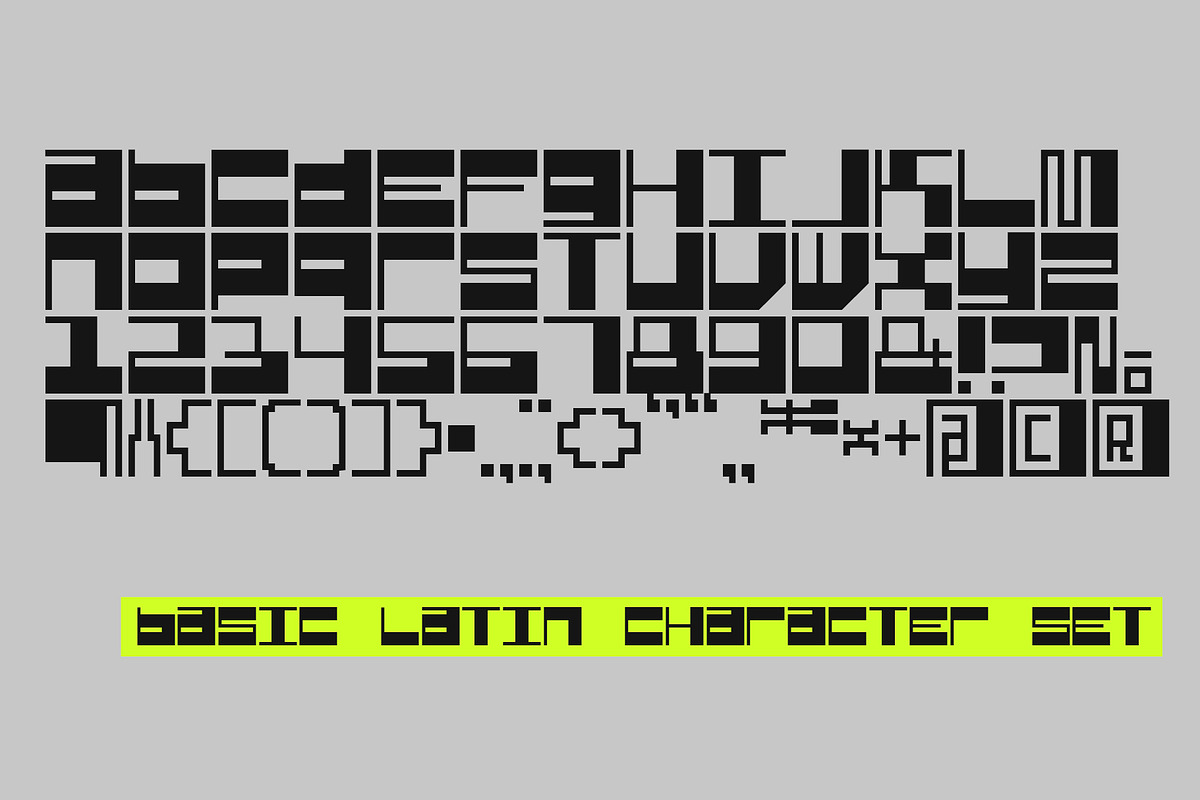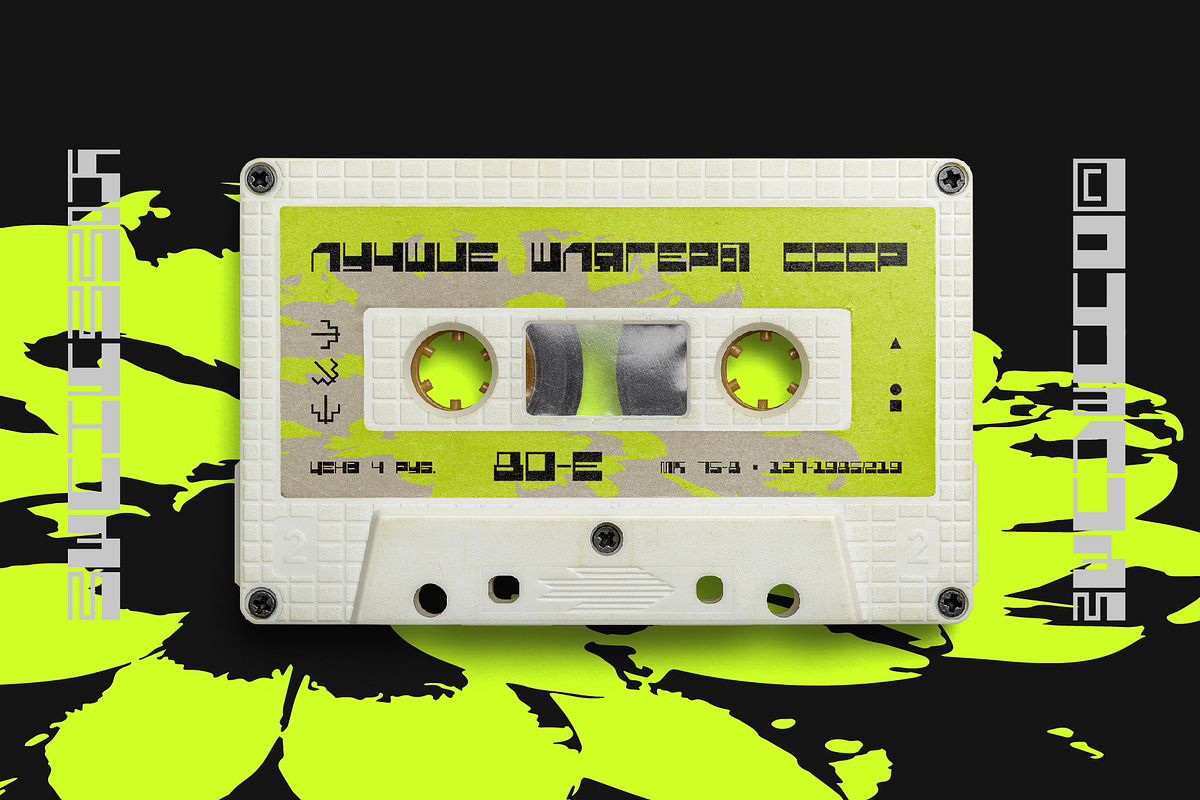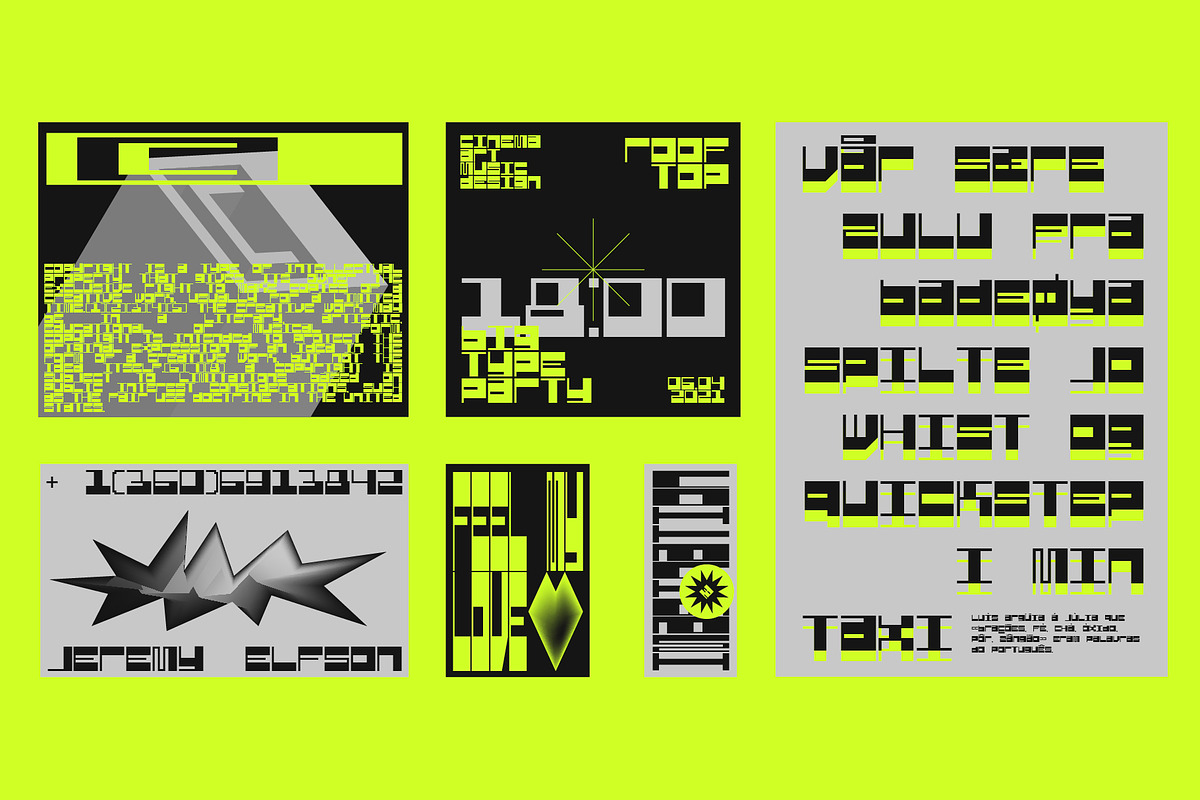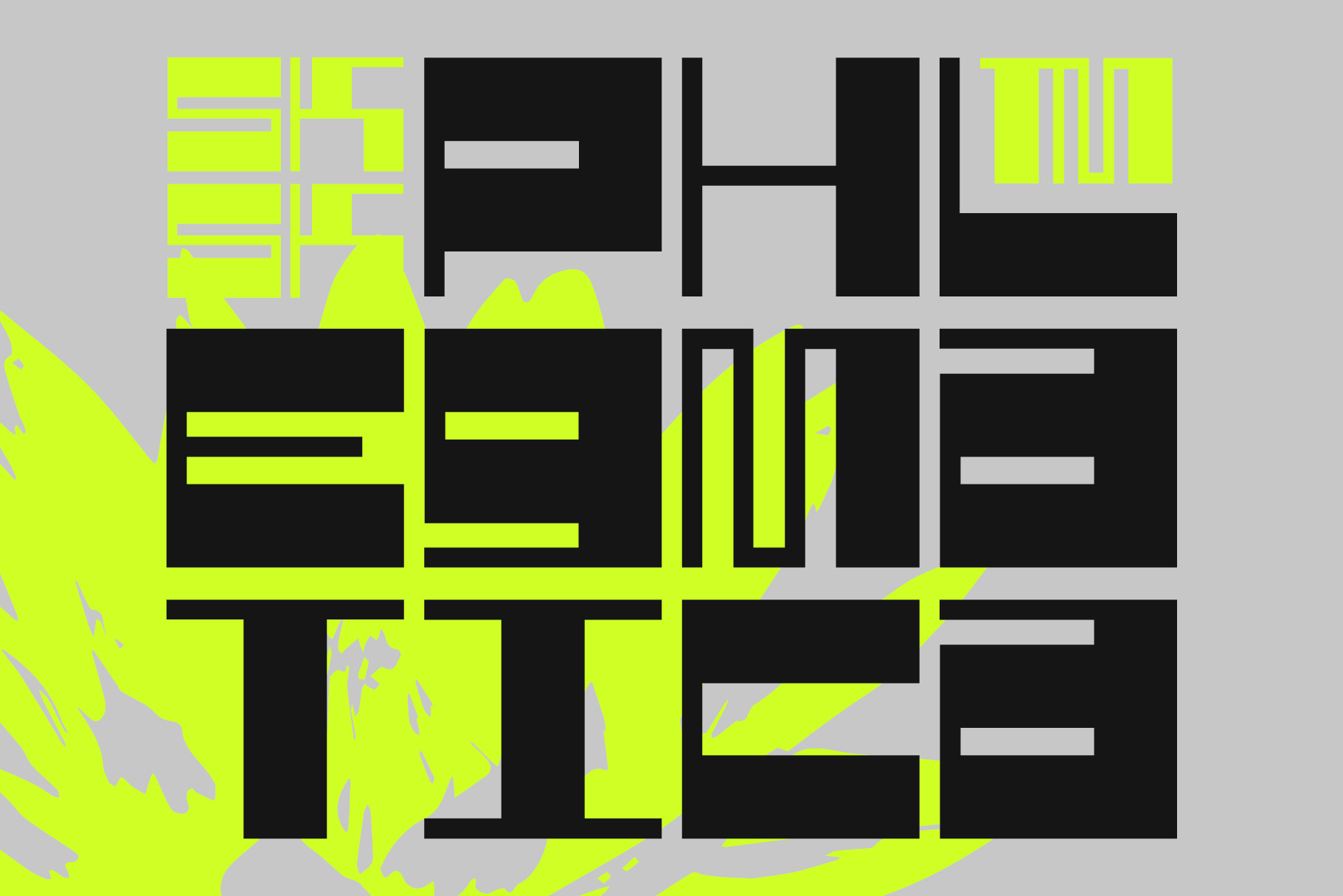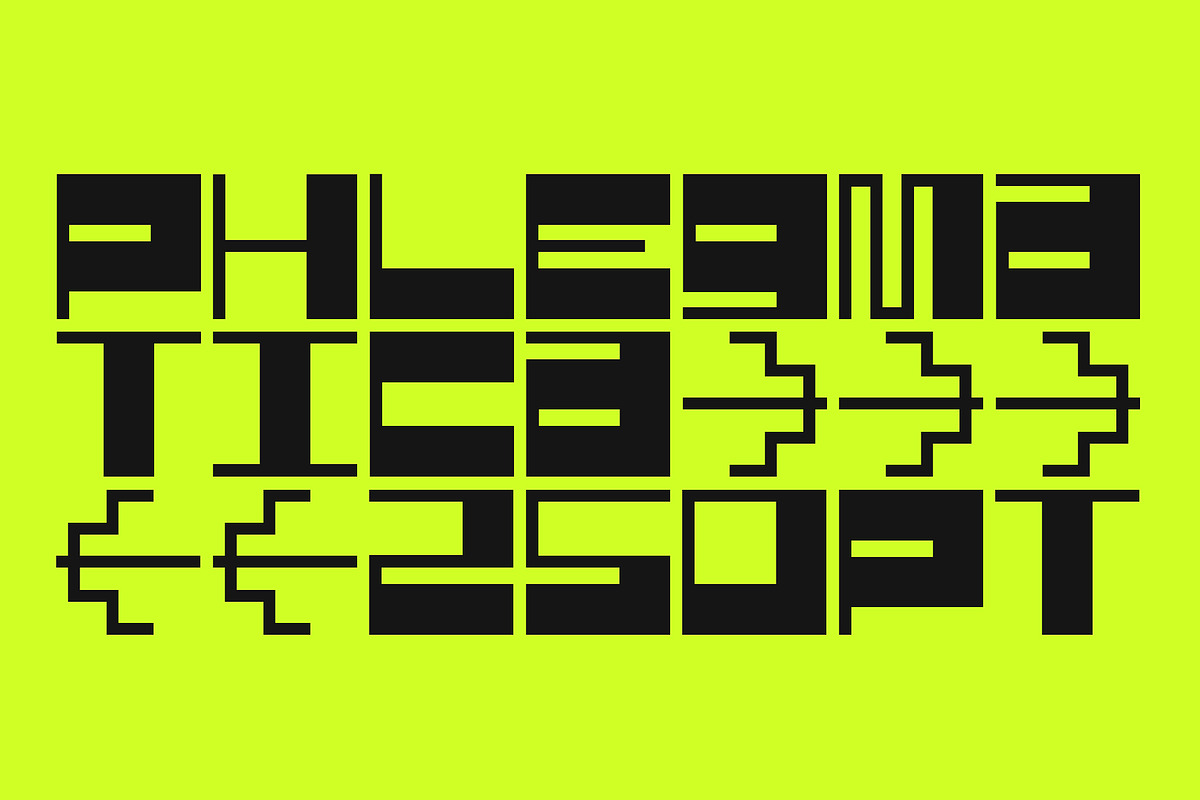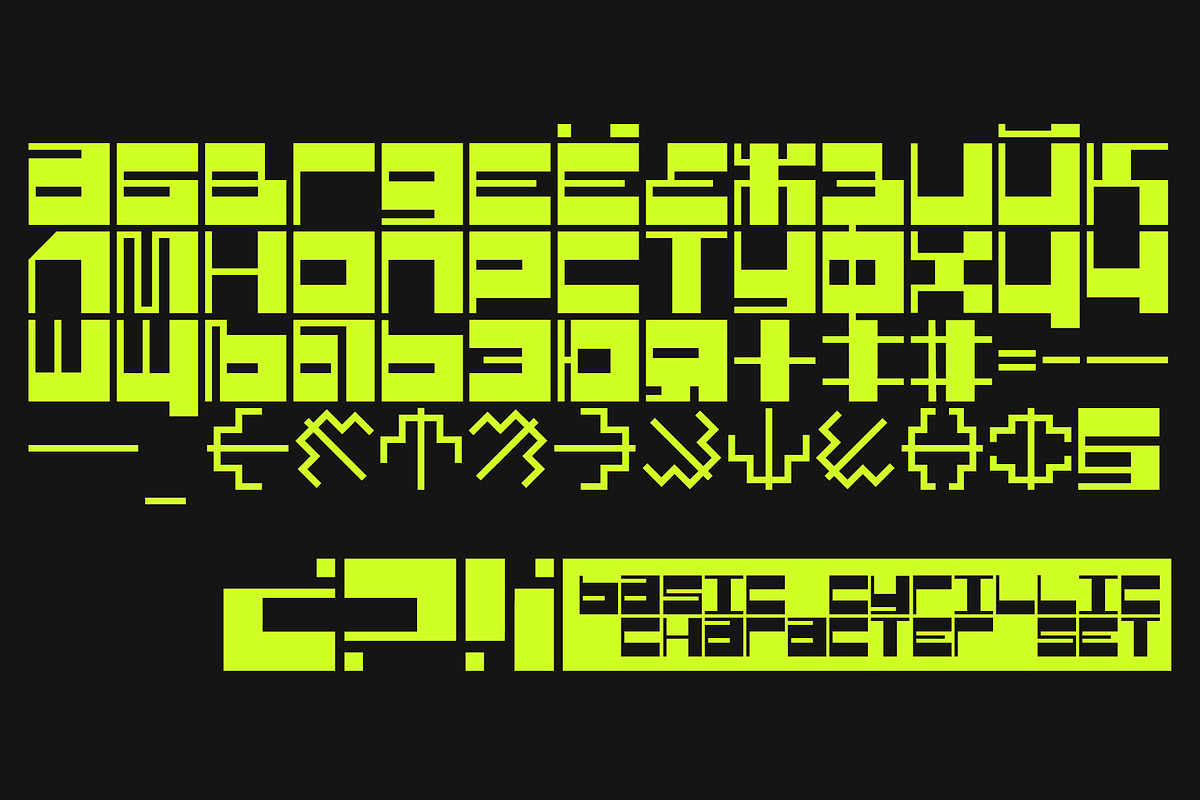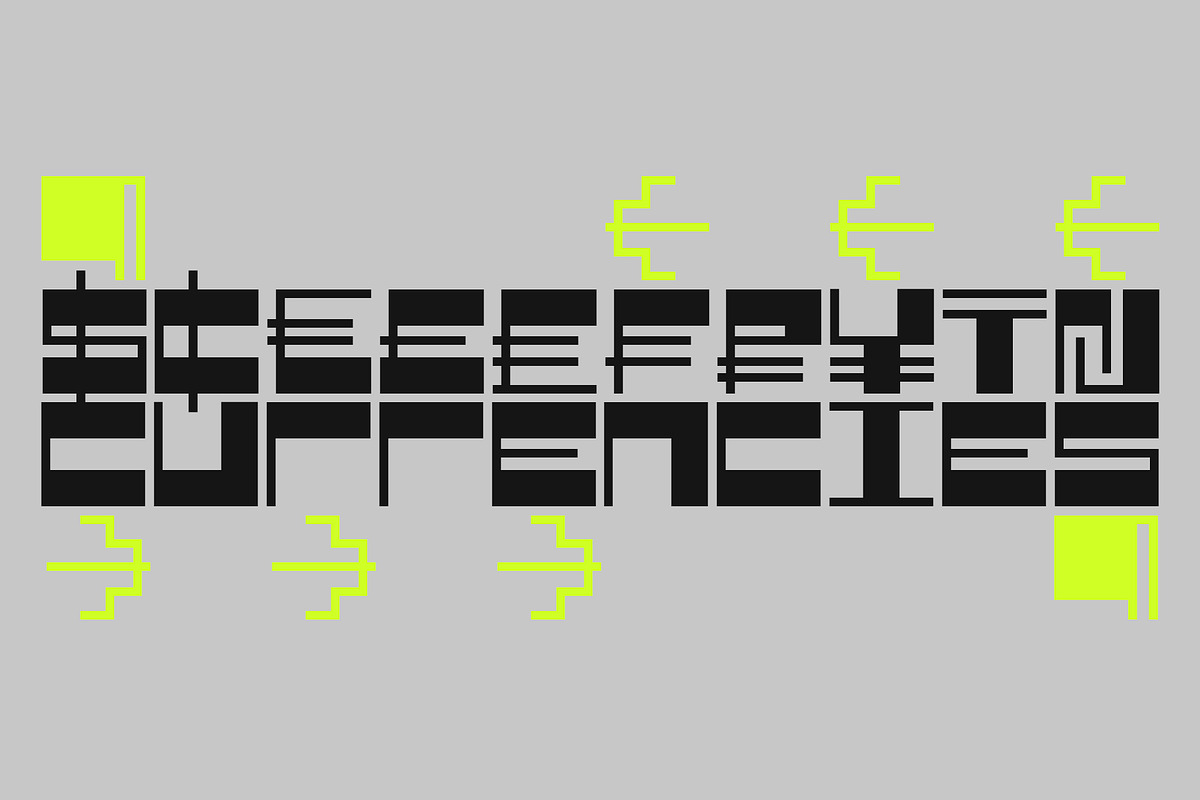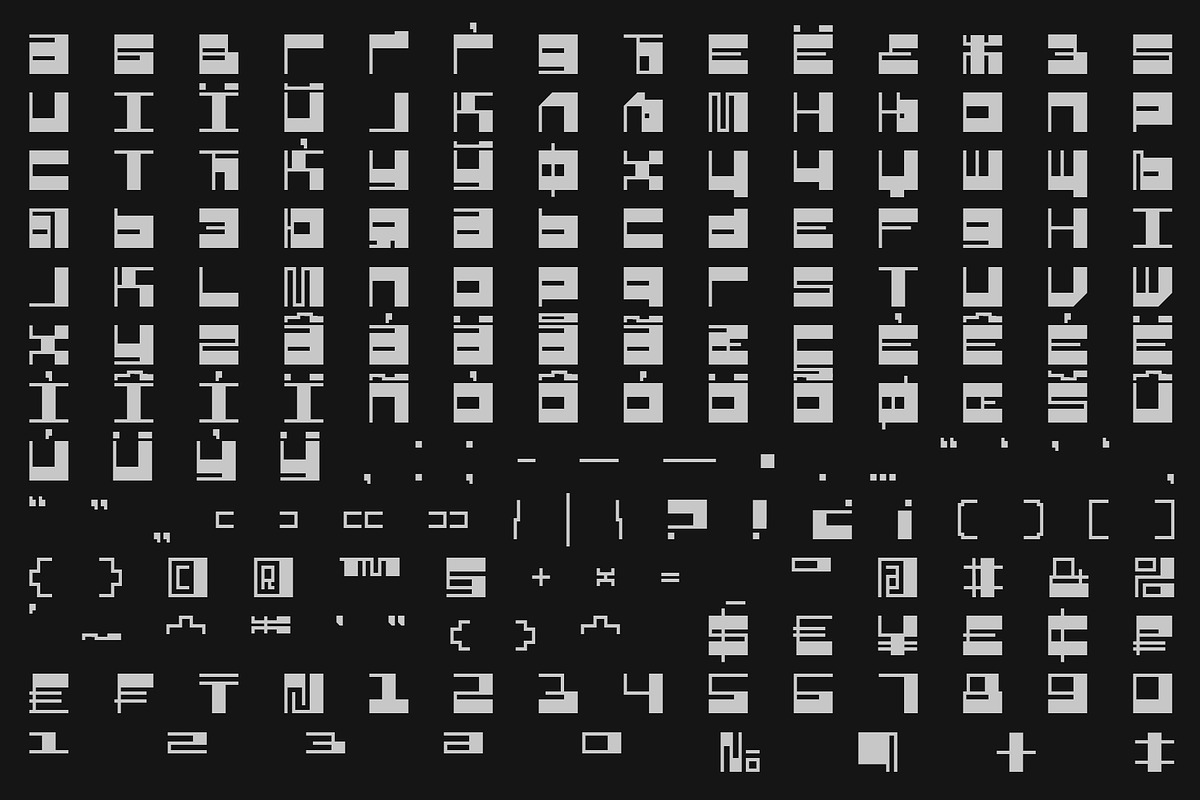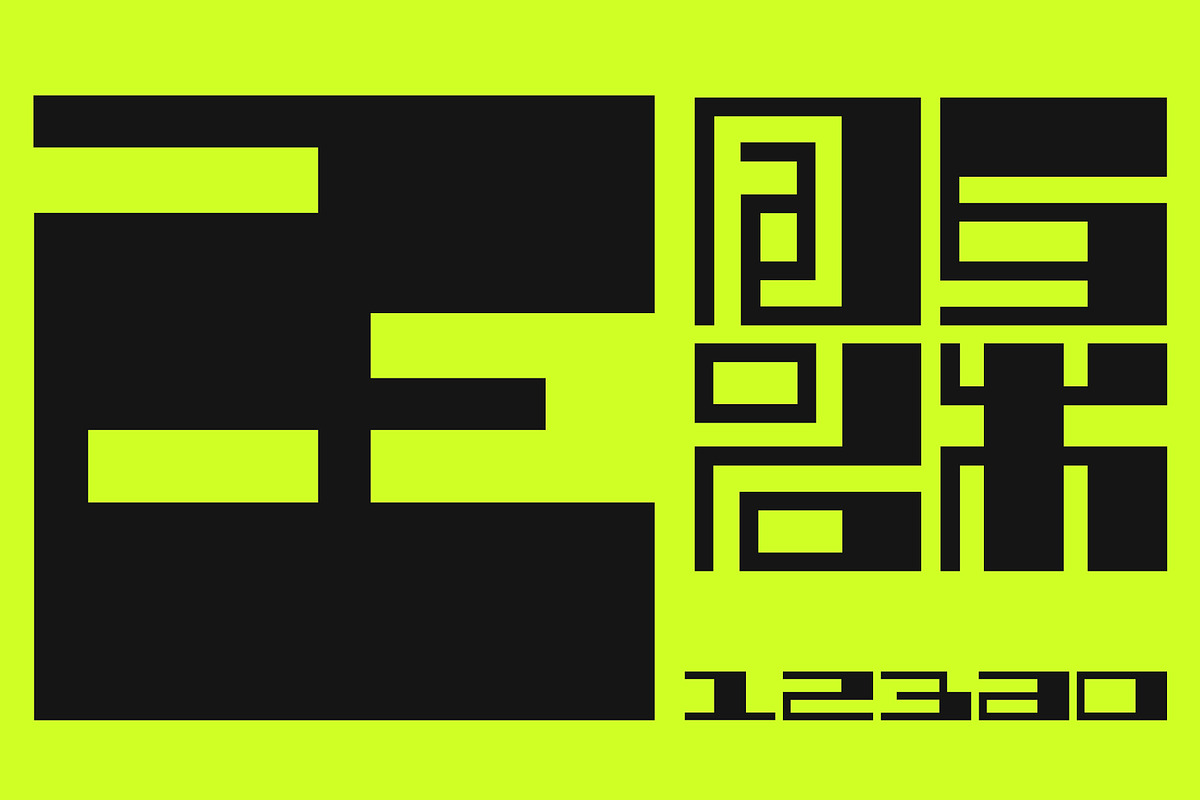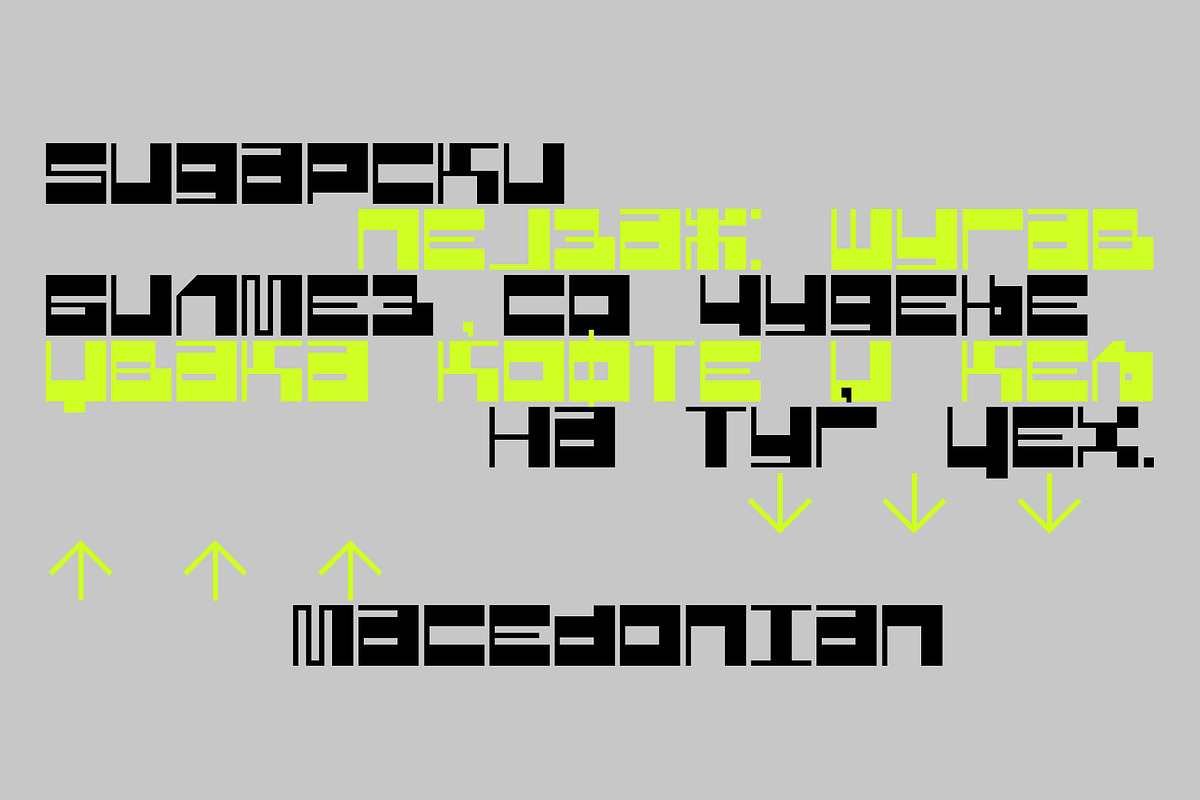
SK Phlegmatica — Heavy Display Font
SK Phlegmatica is a heavy geometrical grotesque with an industrial spirit. The typeface is built on a contrast between thin and wide lines. Such contrast creates certain frames, which in turn give room for experiments with the rhythm of symbols. The monumental shape of the typeface with the rhythmic contrast of the characters creates a unique pattern in the text line. In addition to the visual advantages, the typeface has technological advantages. SK Phlegmatica is a monospaced multilingual typeface that supports more than 100 Latin and Cyrillic languages. The typeface is great for highlighting titles, working with posters, and web design.